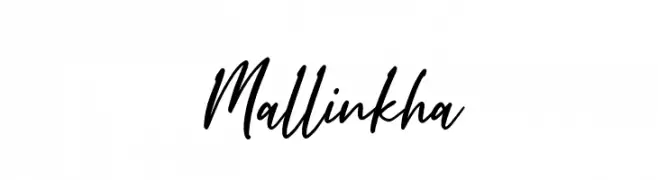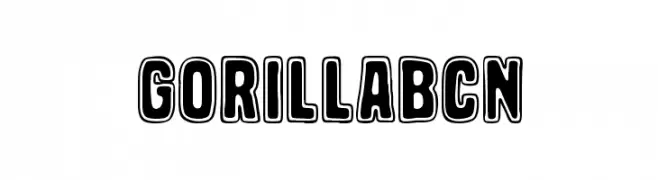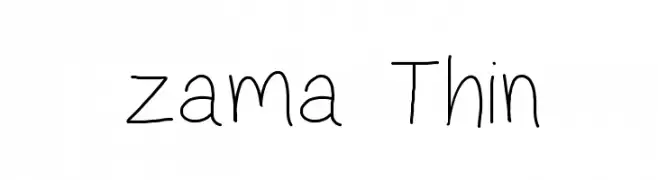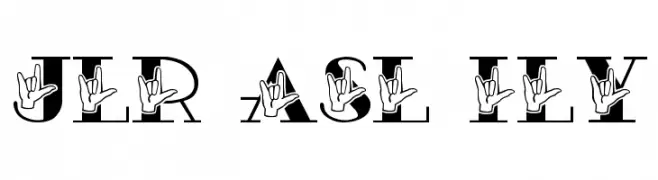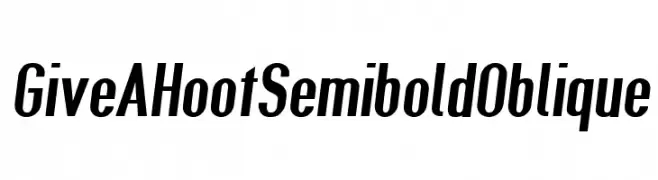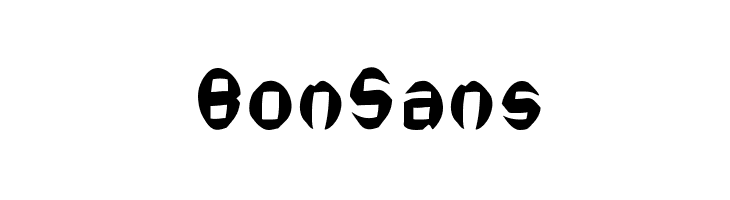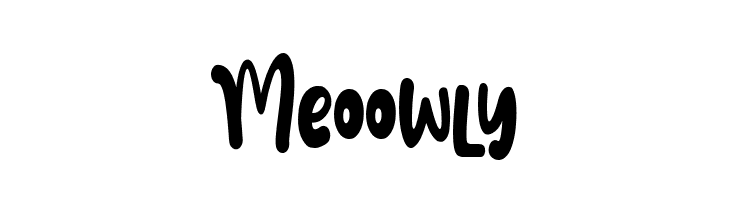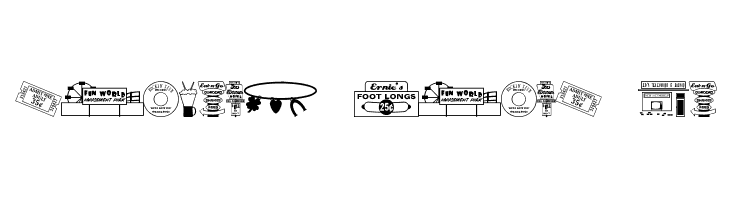
An elegant, flowing script font with a handwritten style.
A bold, outlined font with a playful and energetic style.
A thin, handwritten font with a playful and informal style.
A playful, bold font with wavy, hand-drawn characters.
Korean cultural icon set in bold line-art style.
A sleek, futuristic font with a dynamic slant and geometric shapes.
A serif font with integrated ASL 'I Love You' signs in uppercase letters, blending classic and playful elements.
An elegant, expanded italic font with a calligraphic flair.
A bold, oblique font with a modern and dynamic style.